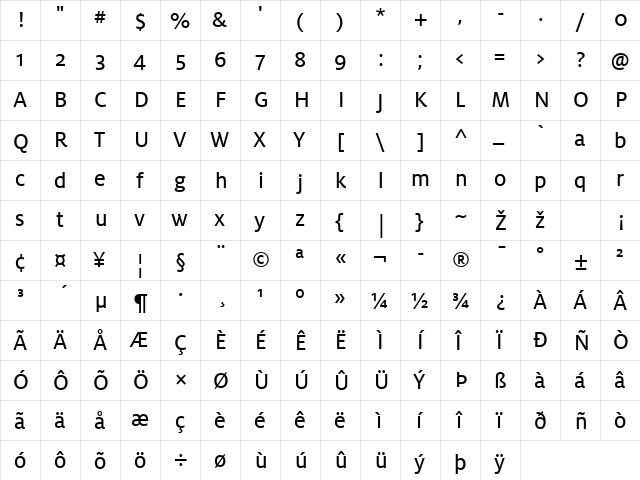
Milo-Text Regular
| Foundry | FSI Fonts und Software GmbH |
| Designer | Mike Abbink |
Design Context for Milo-Text Typeface
Milo-Text offers clean, dependable letterforms without strong stylistic allegiance, making it a practical choice for designers who need flexibility.